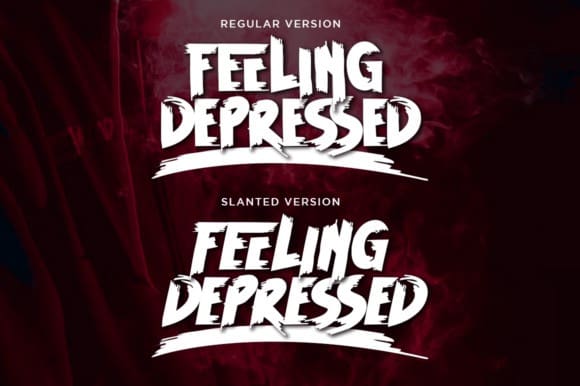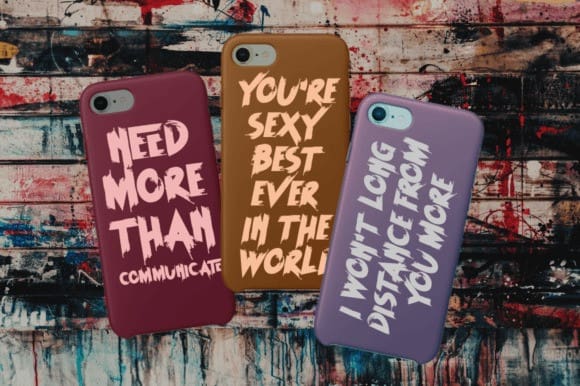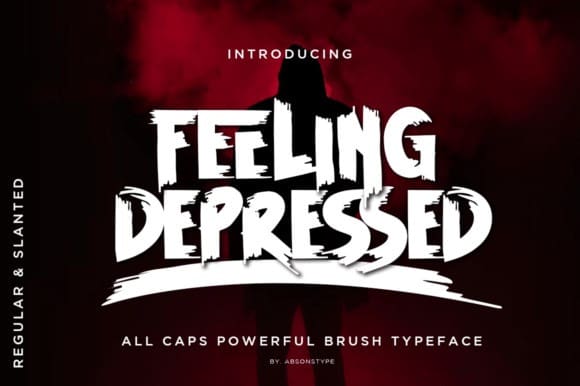
Feeling Depressed Font
Feeling Depressed Font is a cool, modern, textured brush display font. No matter the topic, this font will be an incredible asset to your fonts’ library, as it has the potential to elevate any creation.